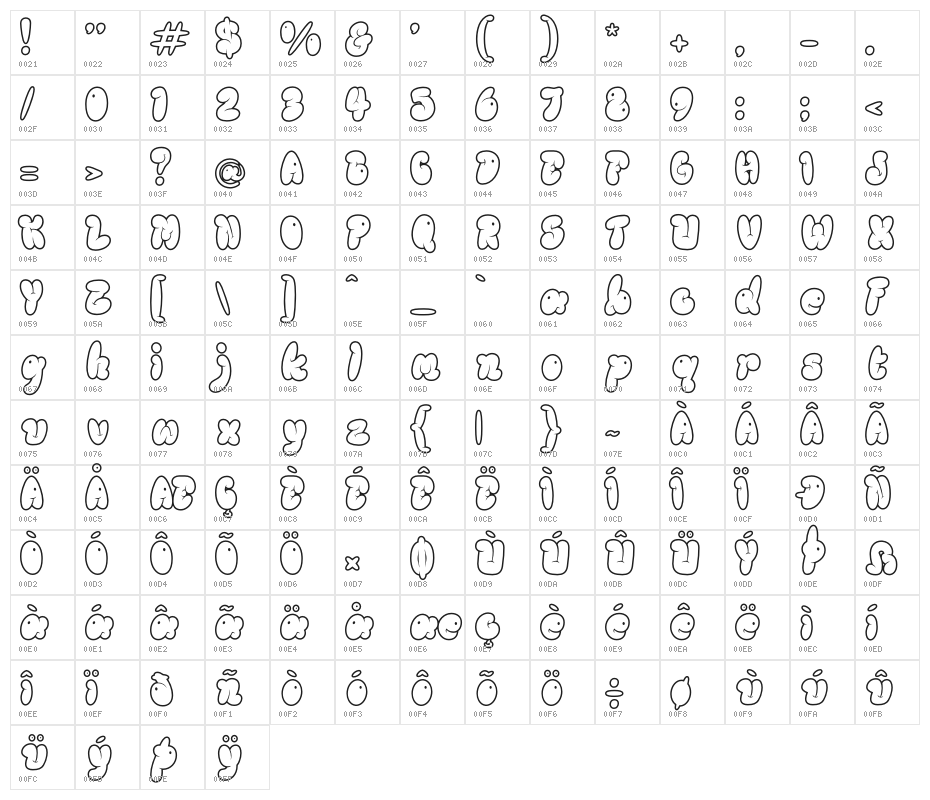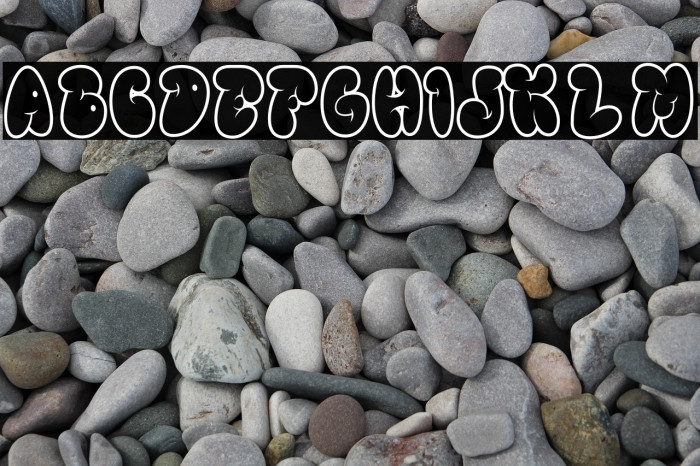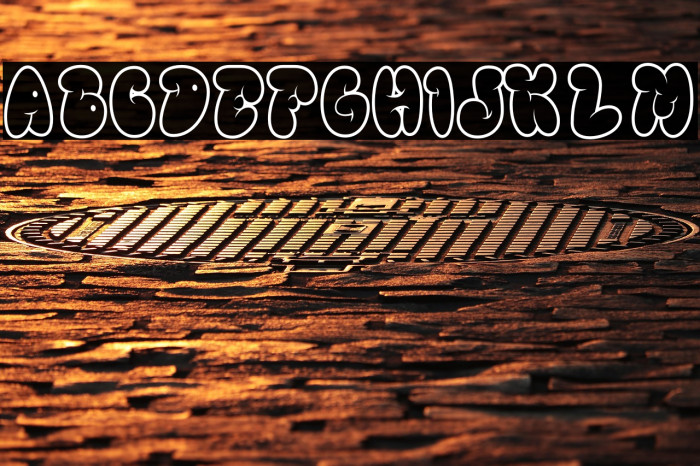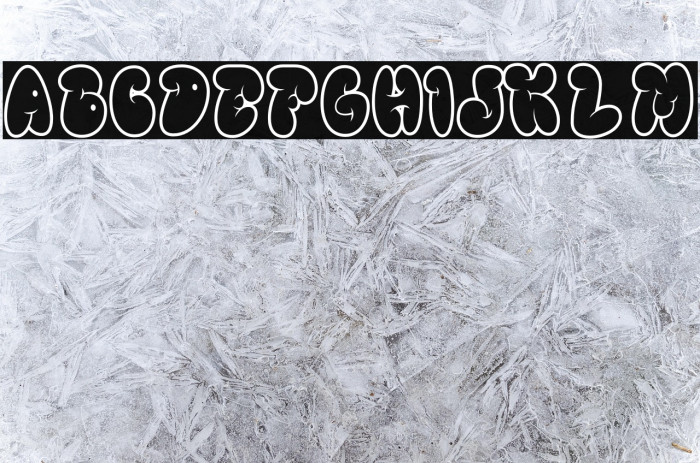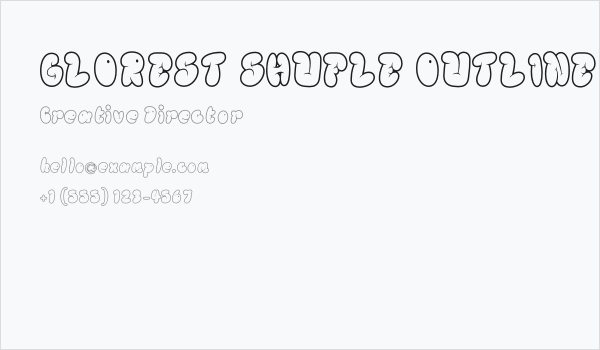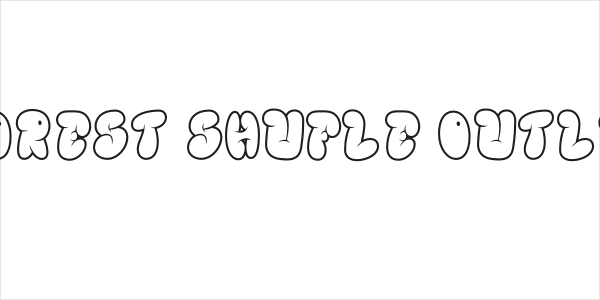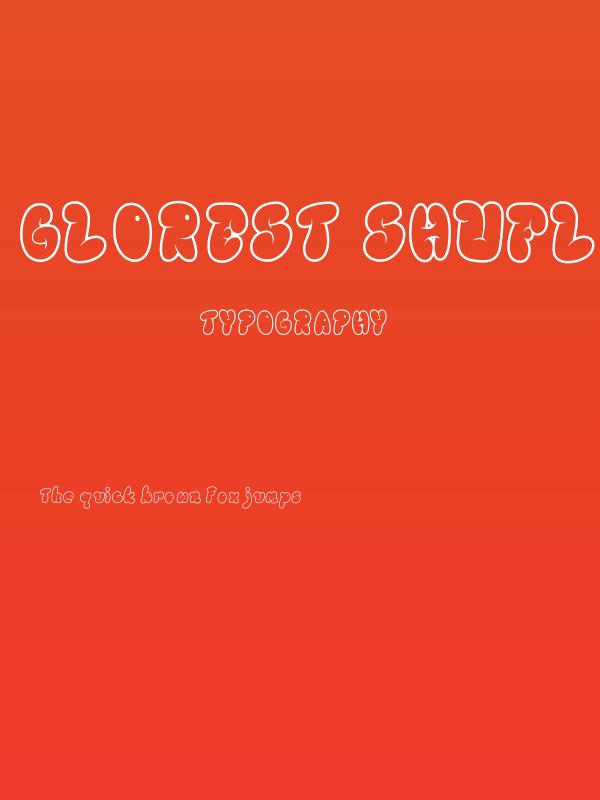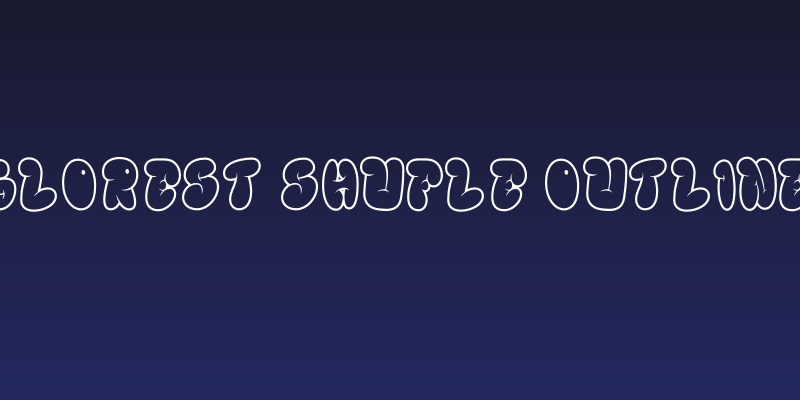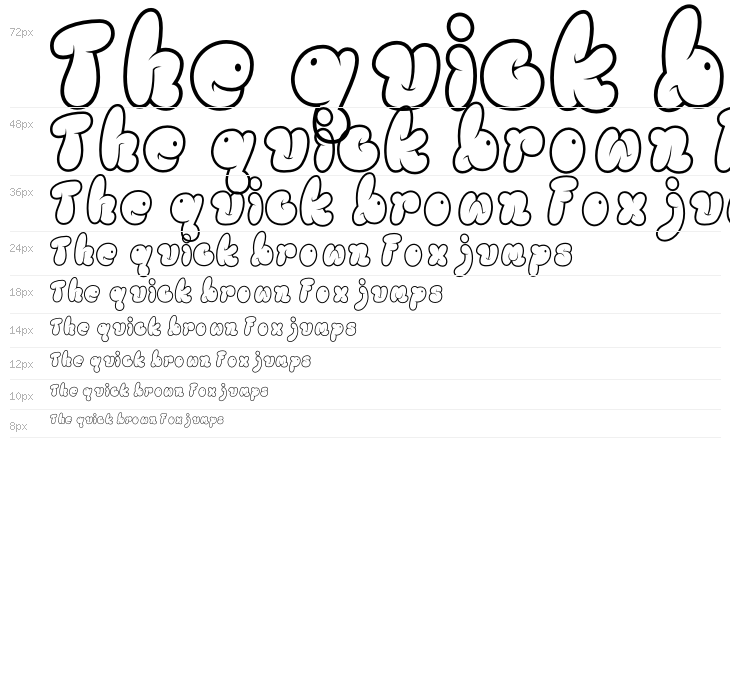
GLOREST SHUFLE OUTLINE Font
GLOREST SHUFLE OUTLINE Description
This playful and whimsical font features bold, rounded outlines that give each character a bubbly and cartoonish appearance. The letters are designed with a consistent thickness, creating a cohesive and unified look. The font's unique style is characterized by its exaggerated curves and playful forms, making it stand out in any design. The numbers and special characters maintain the same playful aesthetic, ensuring a harmonious visual experience across all text elements. This font is perfect for projects that require a fun and engaging visual appeal.
| Proposed Projects | Ideal for children's books, playful branding, party invitations, and cartoon-themed designs. |